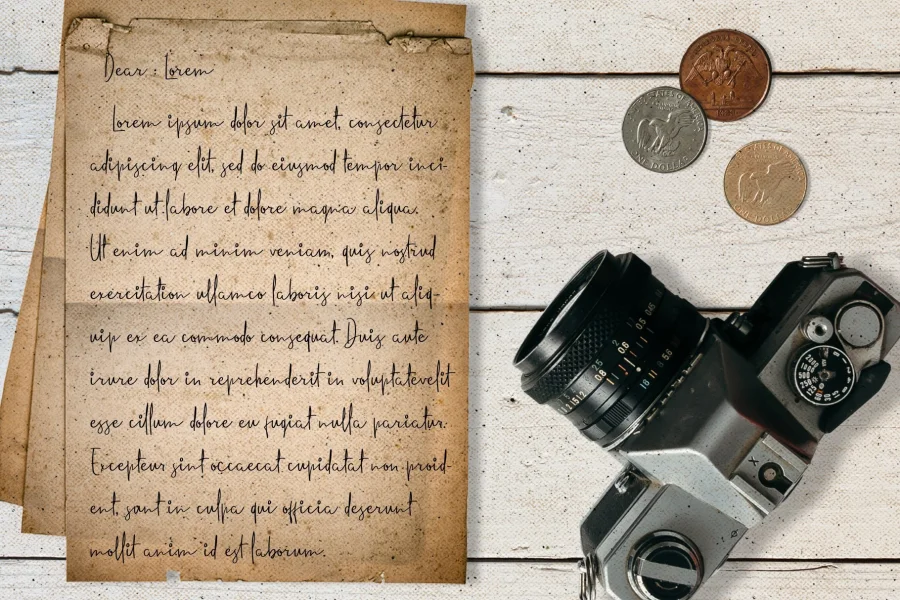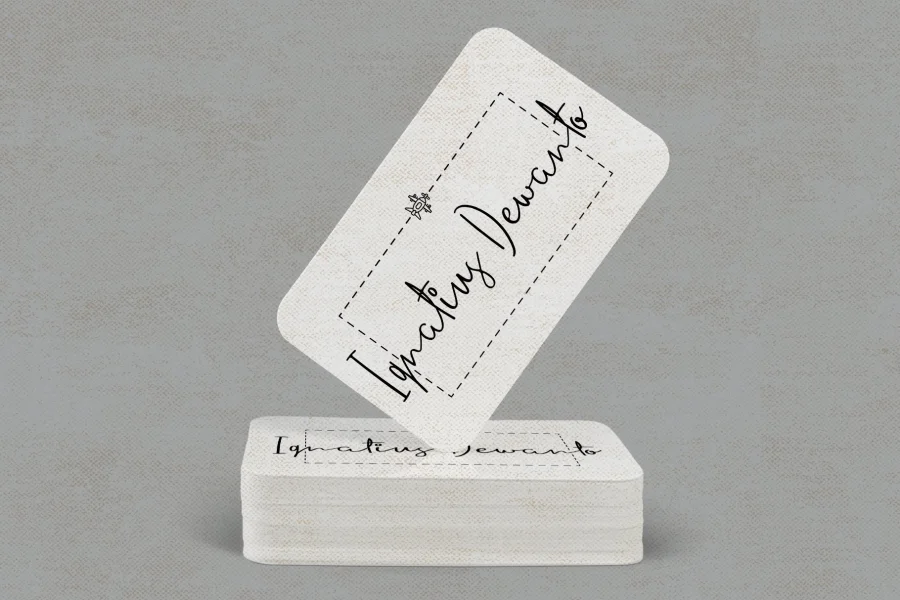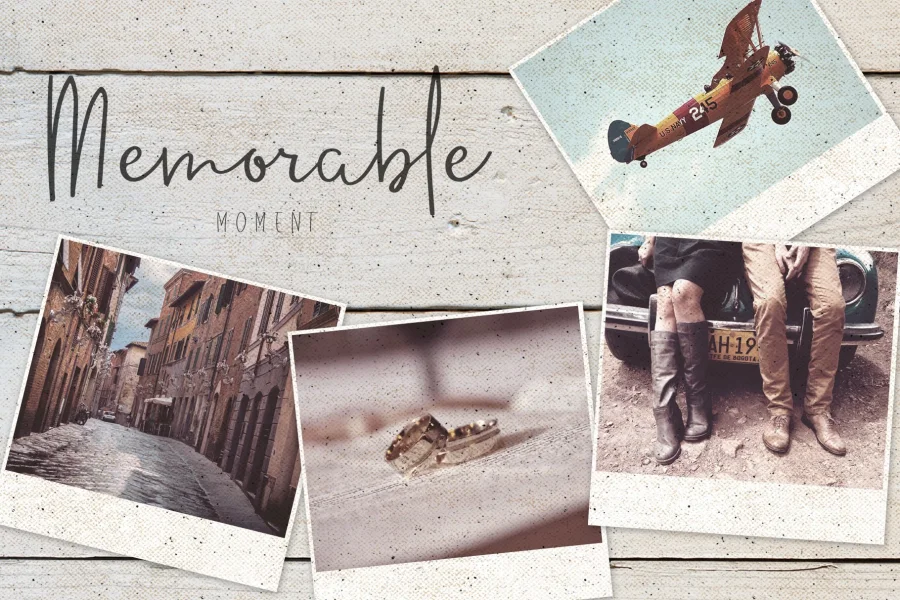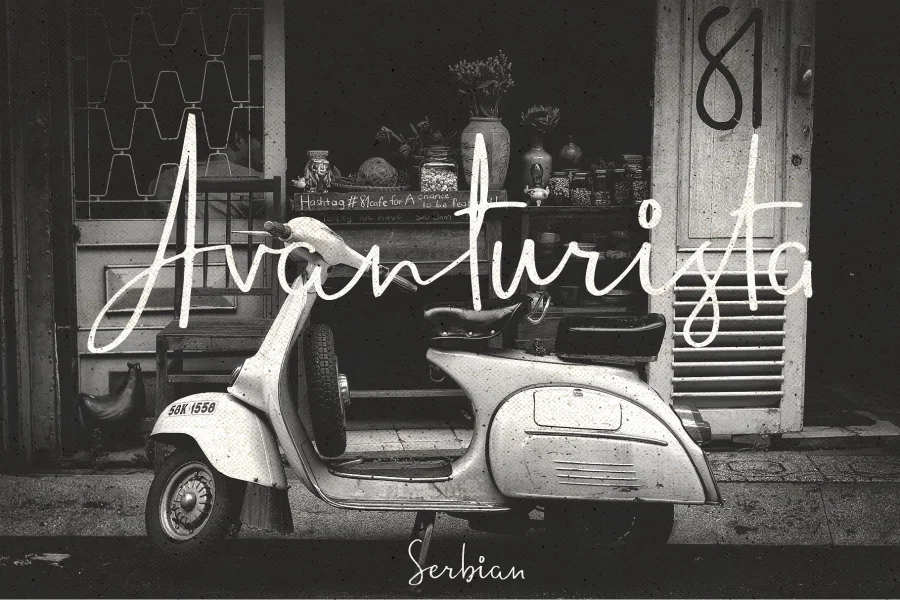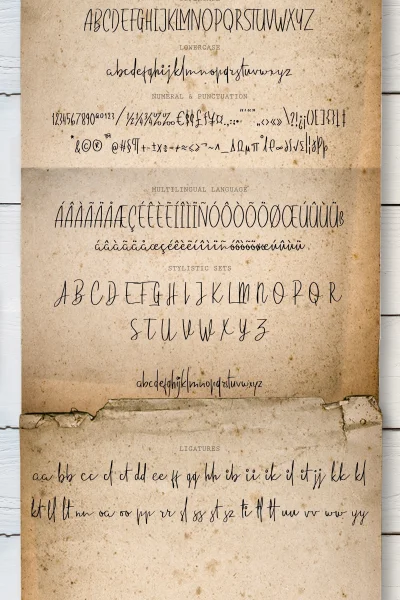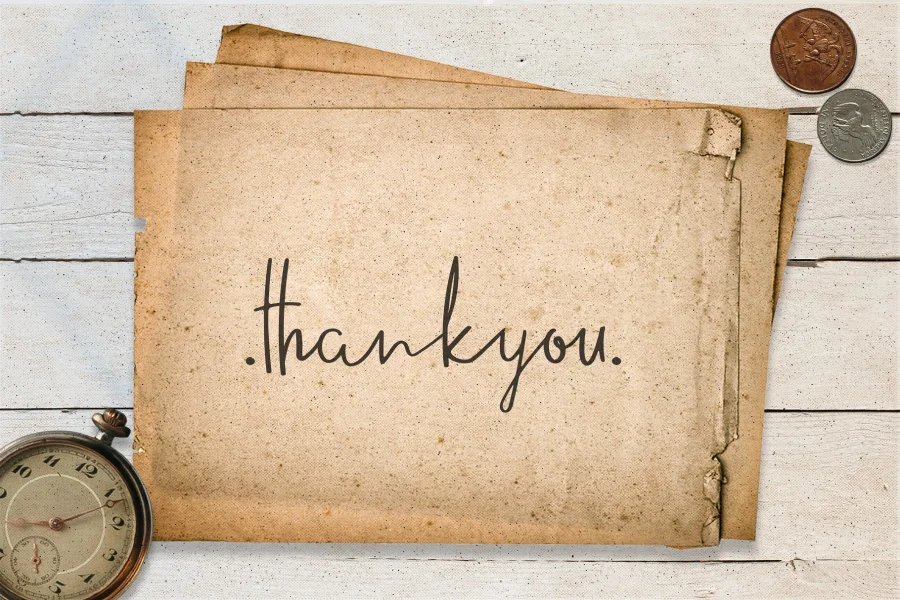
Introducing Standard Pilot a standard handwritten signature font inspired by the naturally handwriting of ballpoint, highly recommended for your design projects. You can use it for: quotes, logo design, ID card, self branding, prints, and much more. Comes with many ligatures for combined between glyph to make it look very natural handwriting. You'll feel like writing a letter would you send it to someone special.